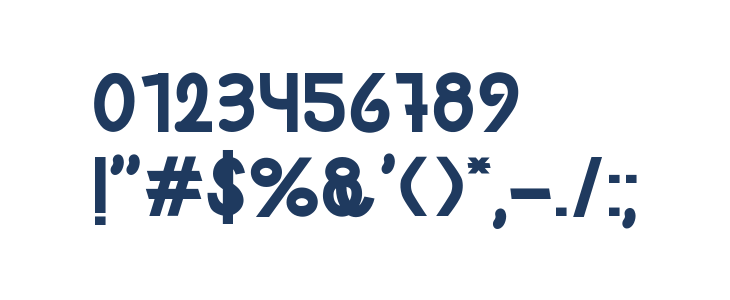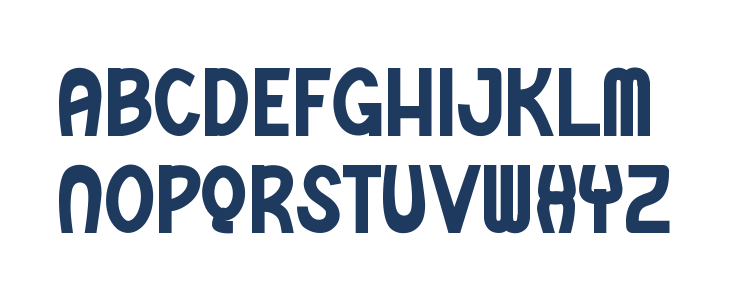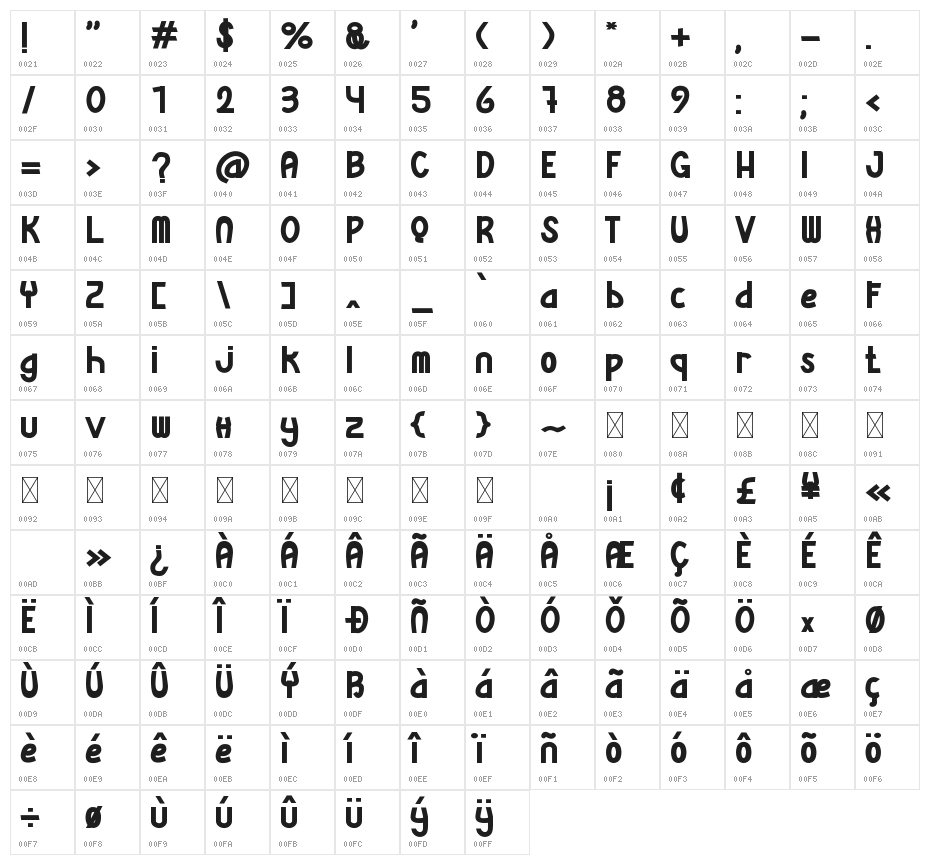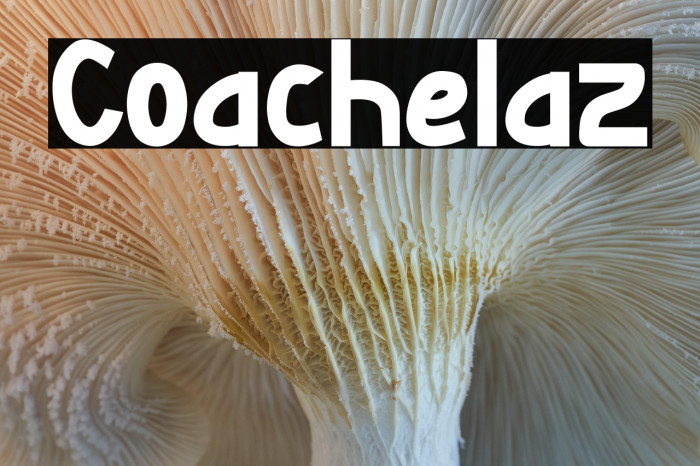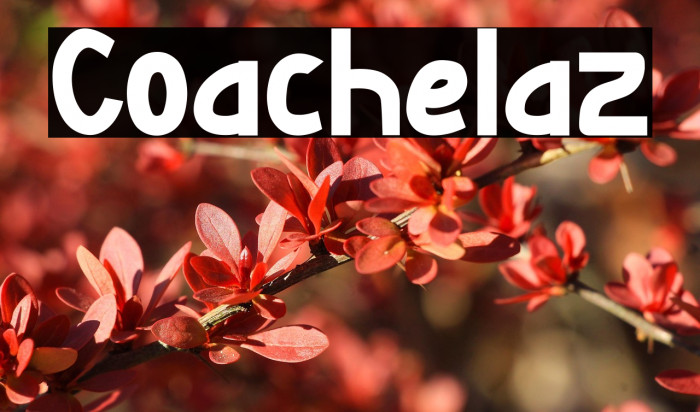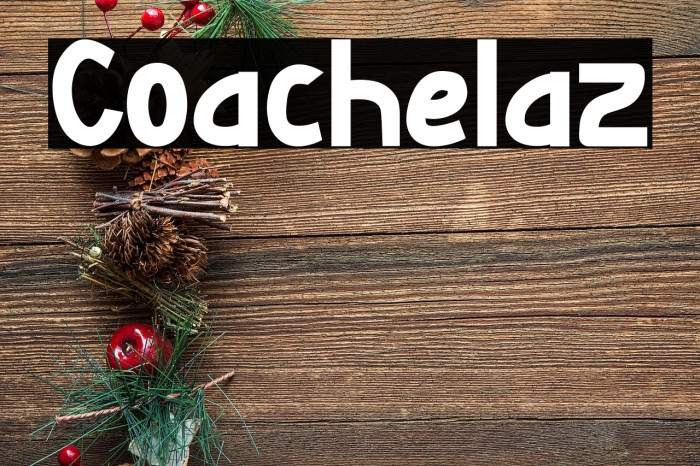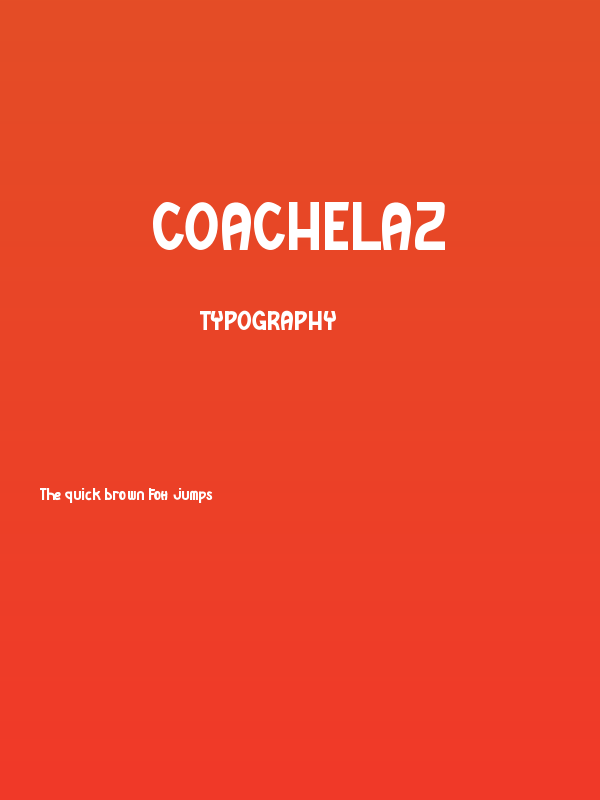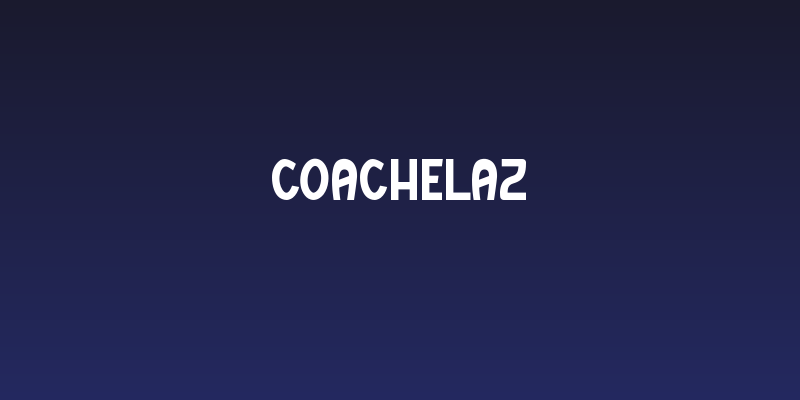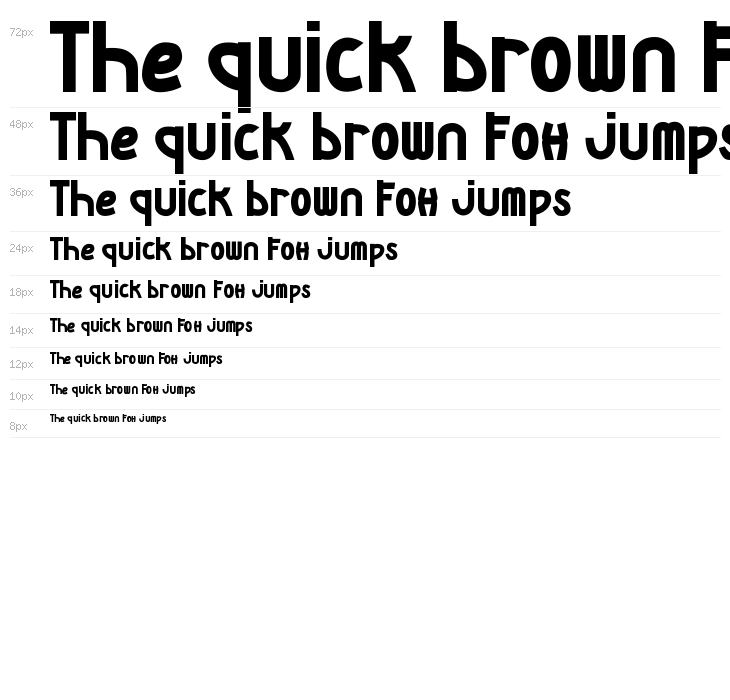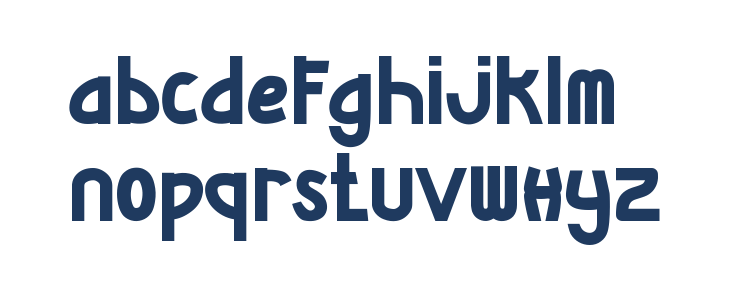
Coachelaz Font
Coachelaz Description
A bold, rounded sans-serif font with a playful and slightly condensed appearance. The characters have consistent stroke thickness with subtle curves and unique stylizations, such as the distinctive shapes of Q, R, and Y. The font includes uppercase, lowercase, numerals, and common punctuation marks.
| Overall Style | Modern, Playful |
| Proposed Projects | Suitable for logos, headlines, posters, packaging, and branding projects that require a friendly and modern look. |